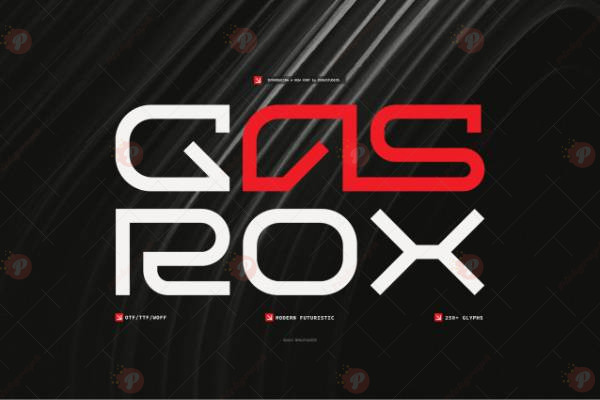
The Gasrox Modern Futuristic Font Free is a cutting-edge display typeface crafted for designers who want a bold, high-tech, and sci-fi look. With its sharp edges, geometric shapes, and modern styling, this font is ideal for gaming, technology branding, digital artwork, posters, album covers, and futuristic UI/UX designs.
If you’re working on sci-fi projects, esports branding, cyberpunk themes, or tech-inspired graphics, the Gasrox Modern Futuristic Font Free delivers a powerful and futuristic vibe that grabs attention instantly.
Typeface: Display / Futuristic / Modern
Style: Bold / Geometric / Sci-Fi / Tech-Inspired
Perfect for: Gaming Logos, Tech Branding, Posters, UI/UX, Album Covers, Digital Art, Esports